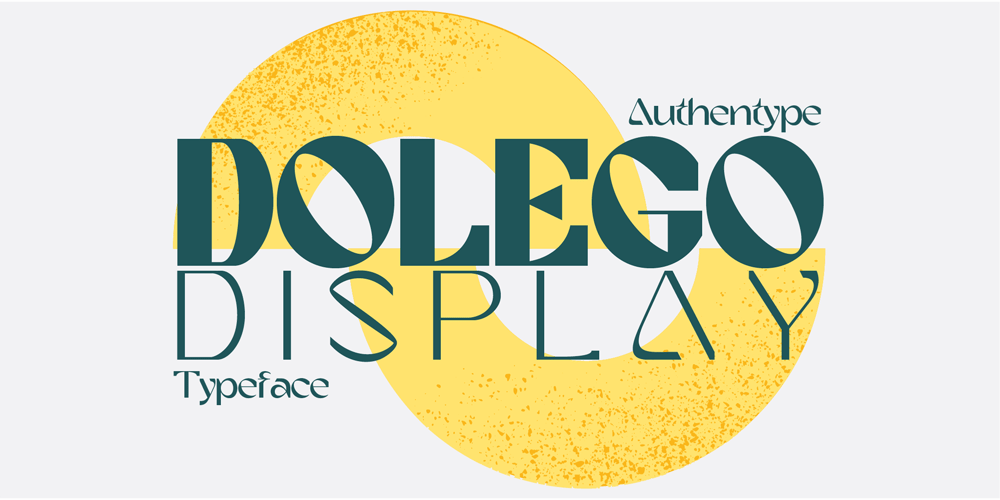
Dolego Font Family was designed by Ekayasa and published by Authentype. Dolego contains 9 styles and family package options. Dolego Display Font cool thin – black font for your retro designs. He is funny and wonderful with a brave personality. Perfect for a headline, logo, or anything your creativity calls for.Features Standard glyphs uppercase and lowercase letters Numerals, a large range of punctuation Lowercase letters Works on PC & Mac Simple installations, accessible in Adobe Illustrator, Adobe Photoshop, Adobe InDesign, even work on Microsoft Word. PUA Encoded Characters – Fully accessible without additional design software. Fonts include multilingual support for; ä ö ü Ä Ö Ü ß ¿ ¡ ____ PLEASE NOTE Most of the fonts require advanced graphic software that supports Open Type Features like Adobe (Illustrator, InDesign, Photoshop), Affinity (Photo, Designer, Publisher), Corel Draw, or similar software.Image used: All photographs/pictures/logo/vector used in the preview are not included, they are intended for illustration purposes only.Thank youHope you enjoy our font!